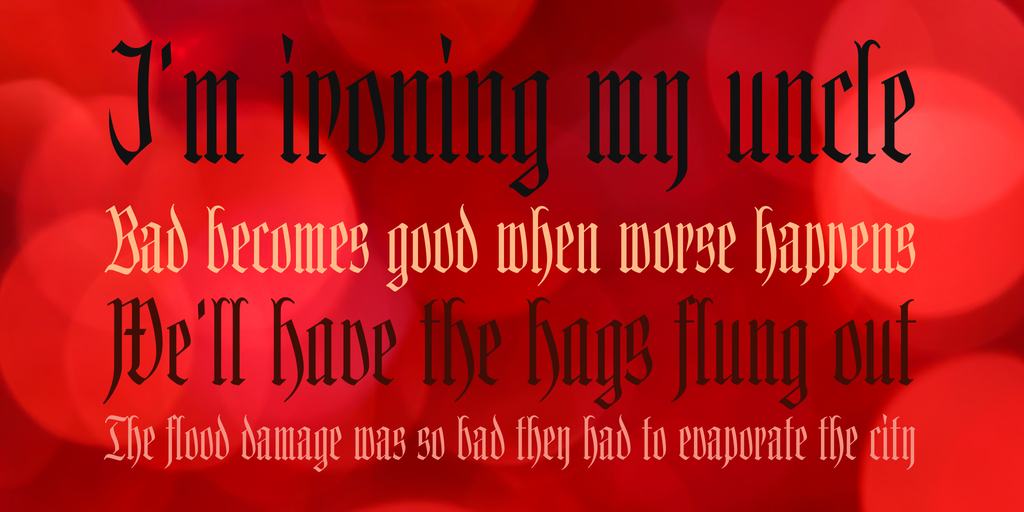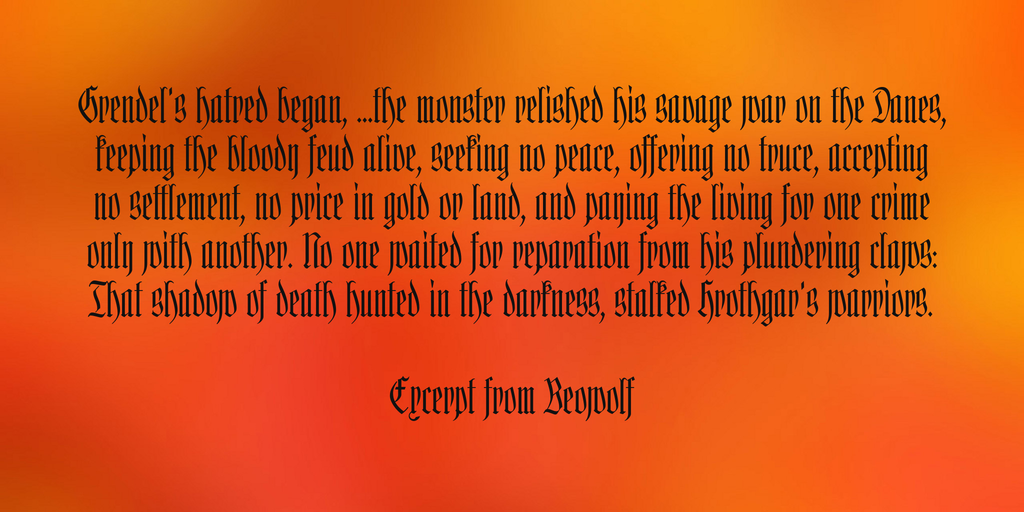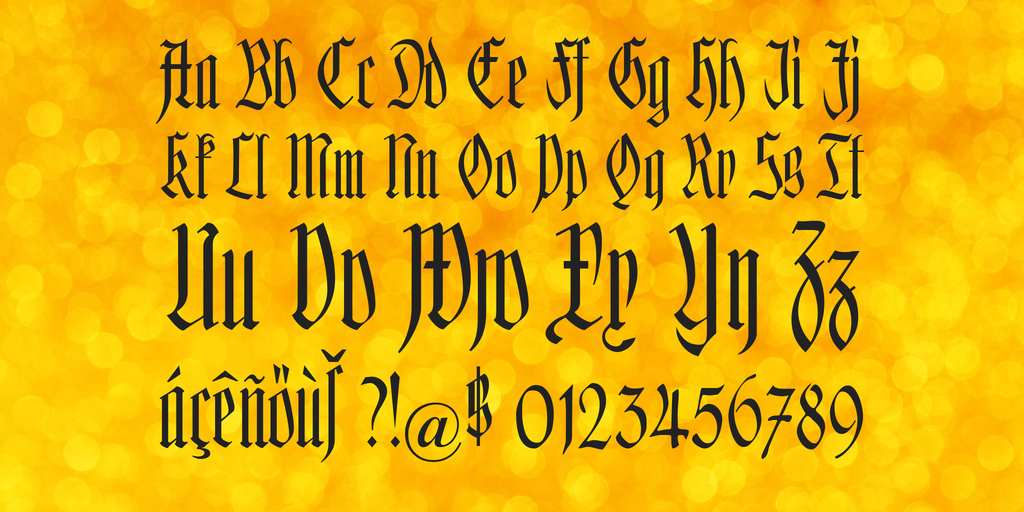
Translation of the original German description: At the request of an Austrian fire department captain, I have rebuilt this font after the inscriptions used at an Austrian fire station in 1930, in order to label the the station again as it once was. As the original font had a few unusual peculiarities, I designed a second, somewhat smoother version “Kleinsemmering”.